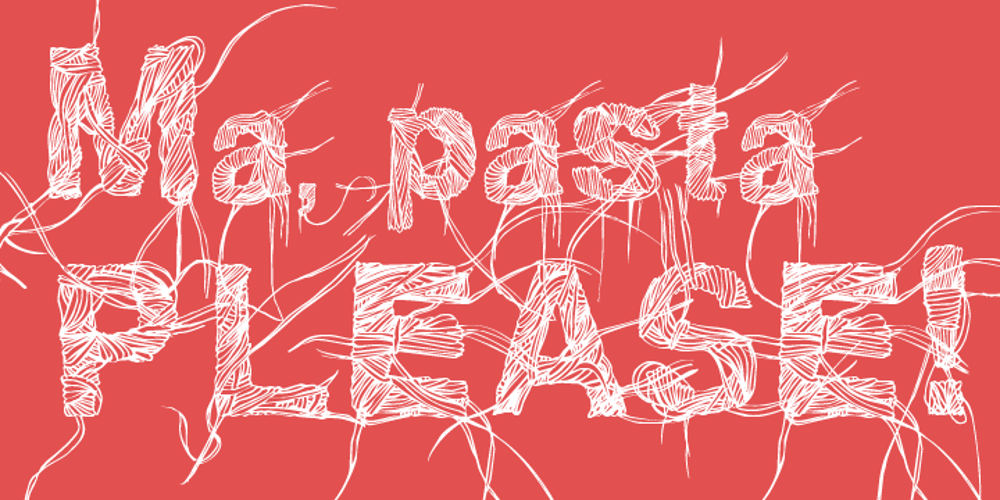
Strands Font Family was designed by Jennifer DeAngelis Gunn and published by J. DeAngelis Design. Strands contains 1 styles and family package options. Strands is a carefully ink drawn font that grows on you. It looks and reads like spaghetti and vines! Spring is emerging with this font. Use it for headlines and logos. Each letter grabs on to the next producing playfulness and life!